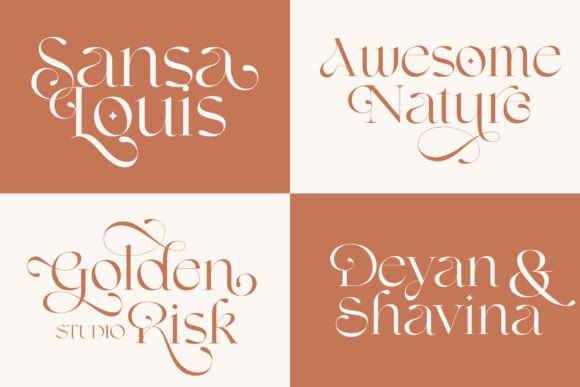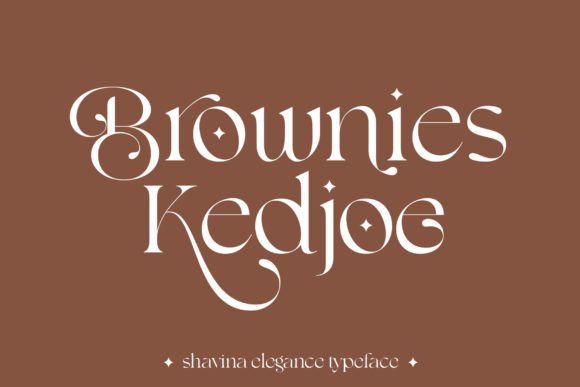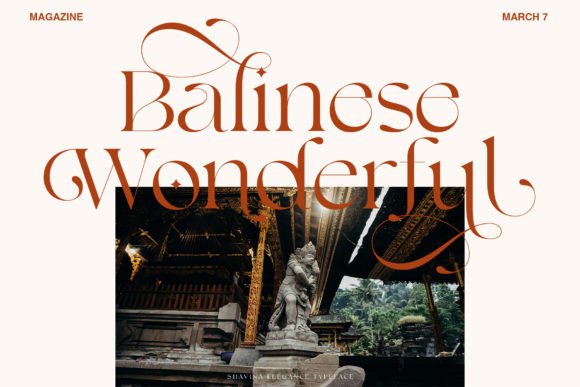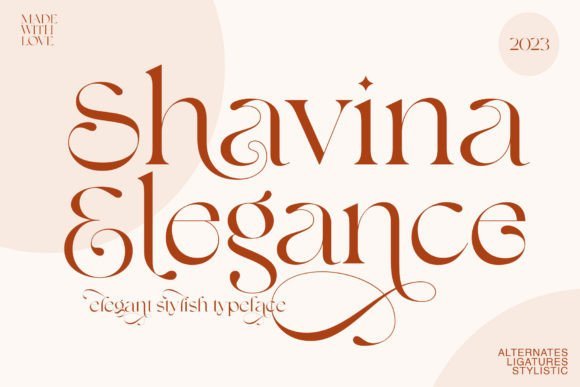
Introduction to Shavina Elegance Font
Shavina Elegance is a special modern style font made with accurate accuracy with beautiful curves.
It is perfect for branding design, logos, greeting cards, title packaging and so much more .